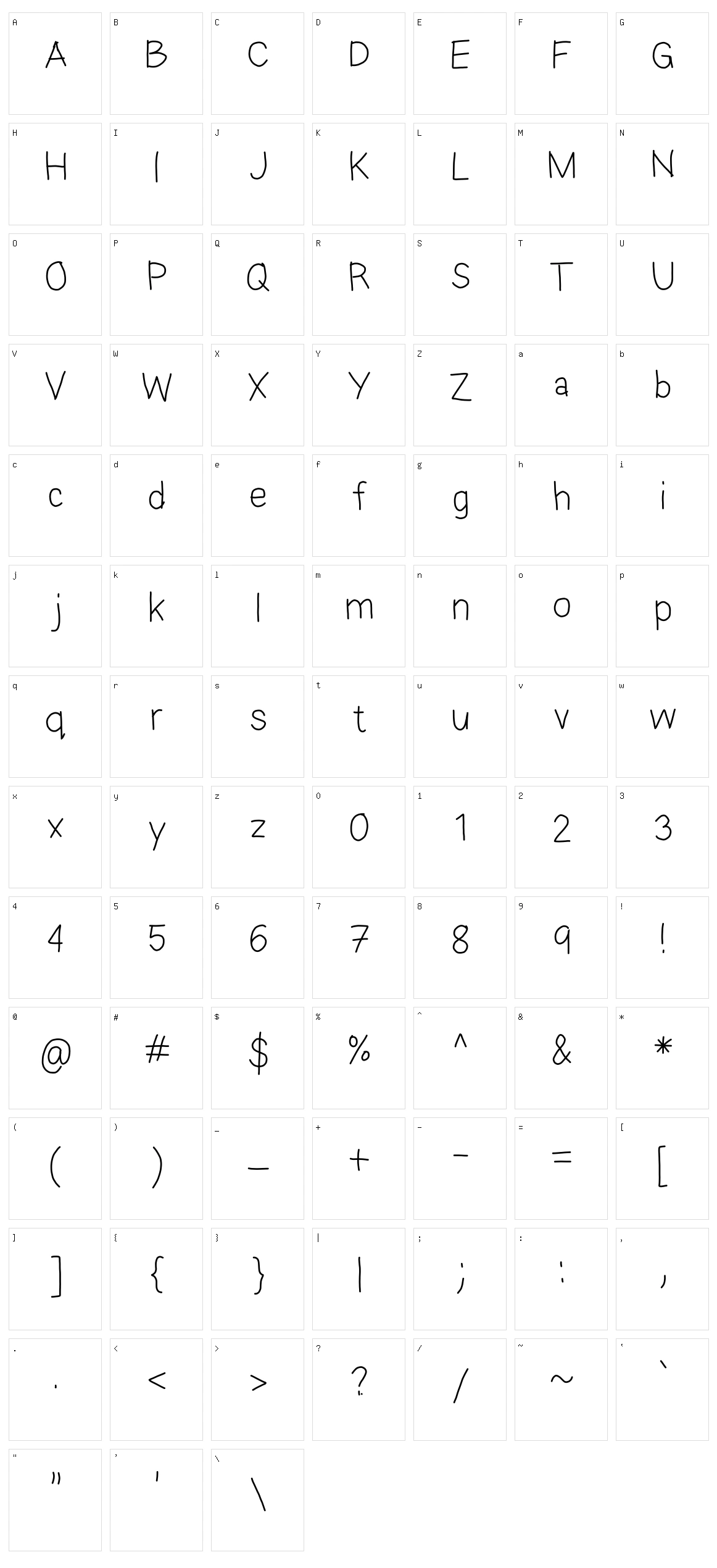
The free font Eka's Android Handwriting is carefully designed by Eka Beco?ado, showcasing a thoughtful balance of creativity and usability and falls under the Script font style. When you download the ZIP file, it contains only 26.36 KB of font files, making it lightweight and quick to download. Please review the license details below to understand permitted usage and distribution rights. If license information is not available, we recommend using this font for personal projects only or contacting the author directly for commercial usage permissions.